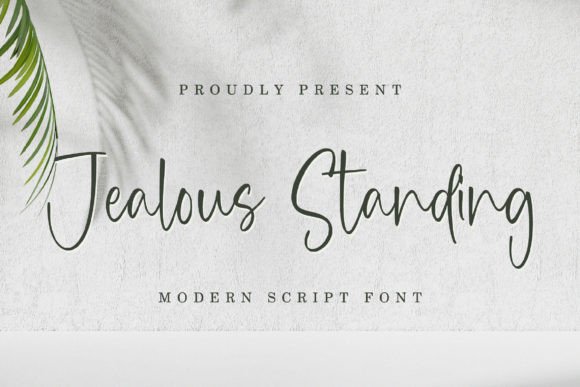
Step into the world of Jealous Standing, an exquisite script font family that transforms chalkboard quotes and teaching materials into captivating works of art. Embrace the authentic charm of Jealous Standing and let your designs flourish with a personal and realistic touch.
**Mesmerizing Script Elegance:**
Unleash the beauty of Jealous Standing, a font family that dances gracefully across your designs, leaving a trail of elegance and sophistication. Its intricate letterforms, reminiscent of skilled calligraphy, add a human touch that resonates with audiences.
**Chalkboard Nostalgia:**
With Jealous Standing, you can effortlessly evoke the nostalgic charm of chalkboard quotes. Its authentic and timeless appeal adds a touch of warmth and familiarity to your designs, creating a sense of connection with your audience.
**Teaching Material Magic:**
Bring your teaching materials to life with Jealous Standing. Its readability and playful style make it the perfect choice for creating engaging and memorable educational resources. Capture your students' attention and foster a love for learning with every stroke of this enchanting font.
**Varsity Letters Triumphant:**
Step onto the field of athletic excellence with Jealous Standing, the ultimate font for varsity letters. Its bold and confident strokes exude strength and determination, inspiring a sense of pride and unity among team members.
**Versatile Expressions:**
Jealous Standing transcends the boundaries of chalkboard quotes and varsity letters, lending its charm to a wide range of design projects. From social media posts and marketing materials to greeting cards and personal invitations, Jealous Standing adds a touch of elegance and authenticity to every creation.
**Emotional Appeal:**
* Ignite creativity and imagination with Jealous Standing, a font that sparks inspiration and stirs the soul.
* Transport yourself to the nostalgic embrace of chalkboard quotes, where memories are made and lessons are learned.
* Feel the thrill of victory with Jealous Standing, a font that embodies the spirit of athletic triumph.
* Embrace the versatility of Jealous Standing, a font that adapts seamlessly to your creative vision, bringing your ideas to life.